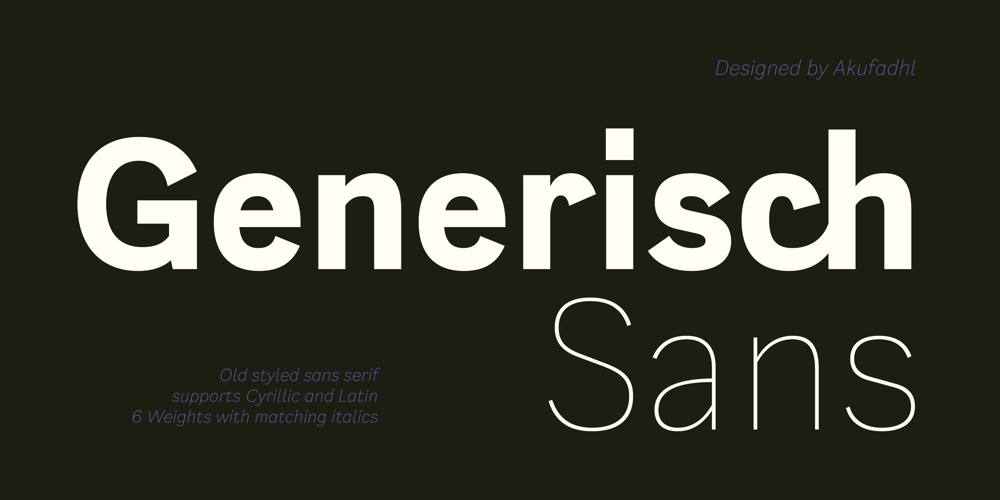
Generisch Sans Font Family was designed by Fadhl Waliy ul Haqq and published by Akufadhl. Generisch Sans contains 12 styles and family package options. Generisch – a german equivalent of generic – sans serif typeface has gain its own place among designers and earn such popularity due to its “simple” design. Generisch is influenced by early grotesk typefaces from early 1900’s when sans was starting to get popular and used as a body type. Some old ligatures such as ch ck and ng are present in generisch (not the ct and st tho), old style numeral for better typesetting experience and more.